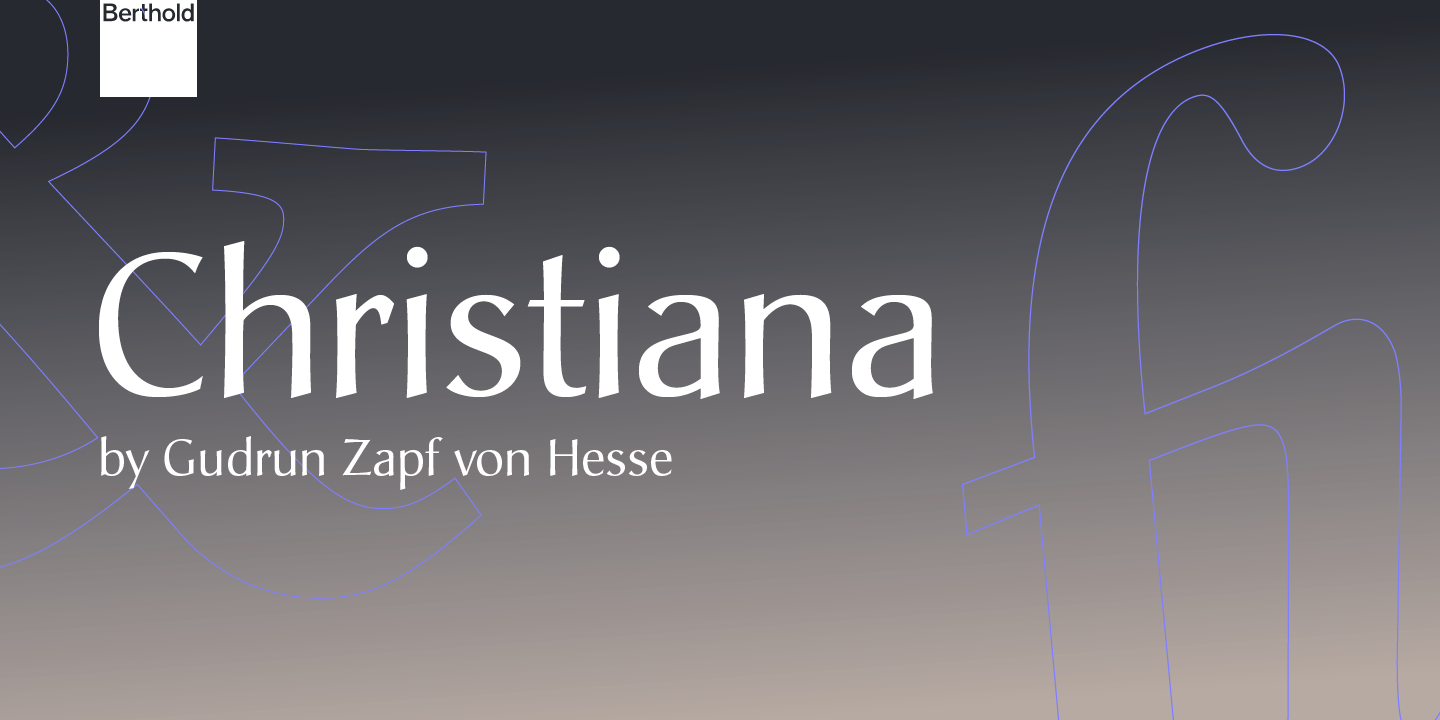
Please note, you must purchase this font for commercial use. You can download Christiana Font Free Download for testing purposes and explore its elegant, classic design. Christiana Font is perfect for high-end branding, invitations, editorial projects, and any design that requires a sophisticated, timeless serif style.
With its beautifully crafted serifs and refined proportions, Christiana Font brings a sense of luxury and professionalism to your designs. It’s ideal for formal projects, wedding invitations, business materials, and any design that requires a sophisticated, classic look.
Christiana Font Free Download supports multilingual characters, making it versatile for global projects. Its legible design ensures readability across both print and digital formats, making it a great choice for various creative applications.